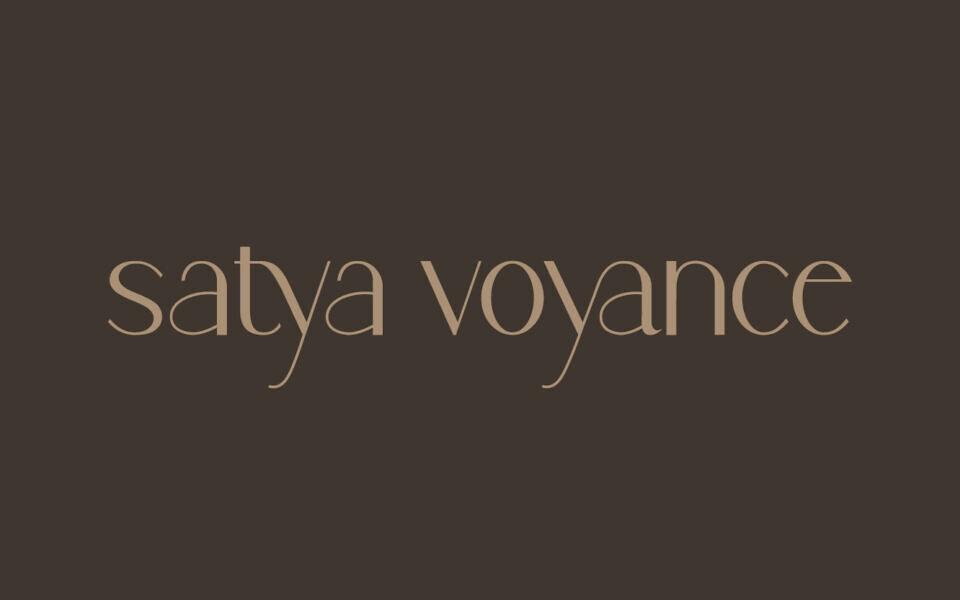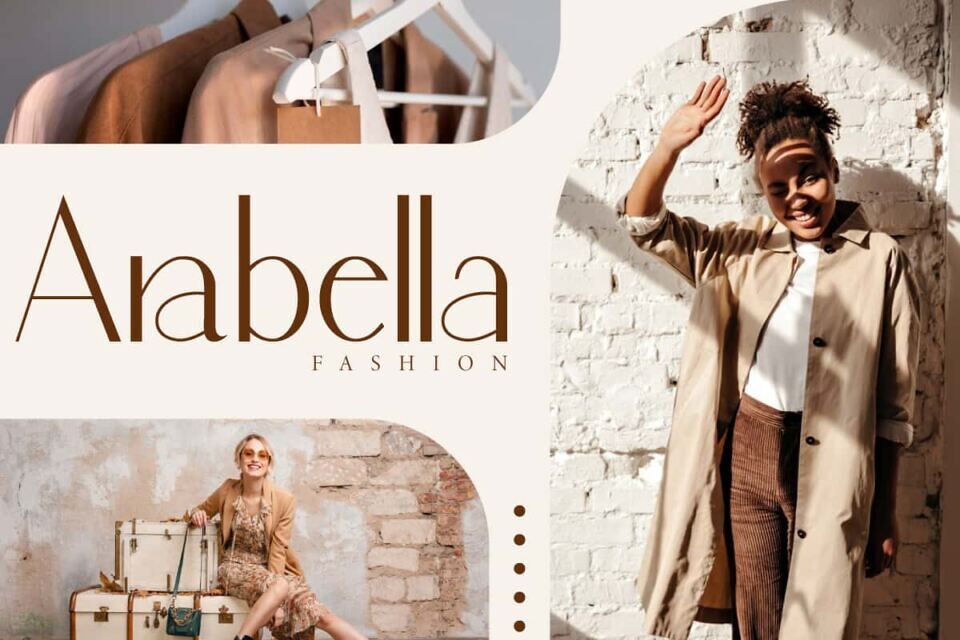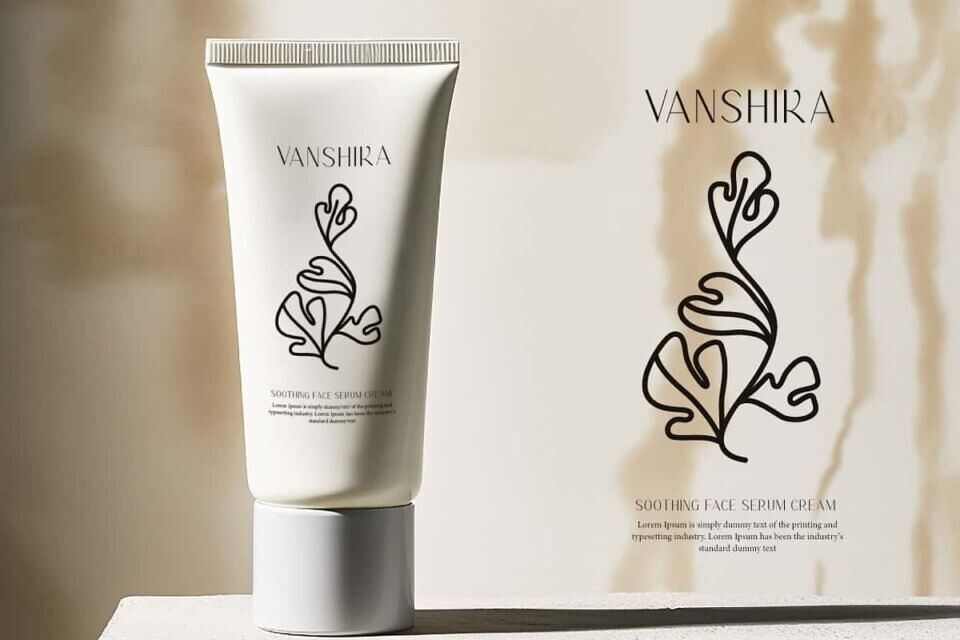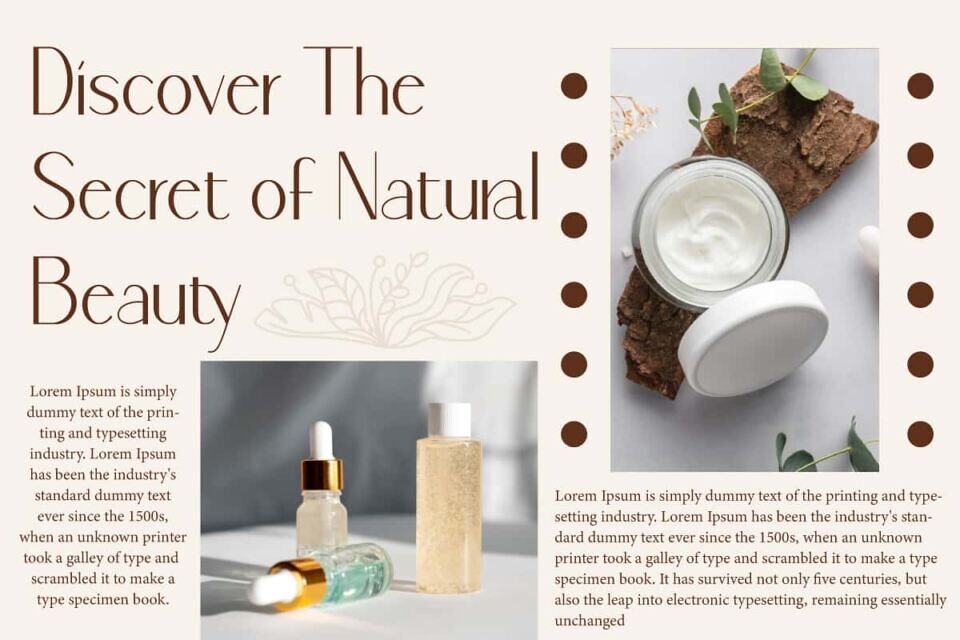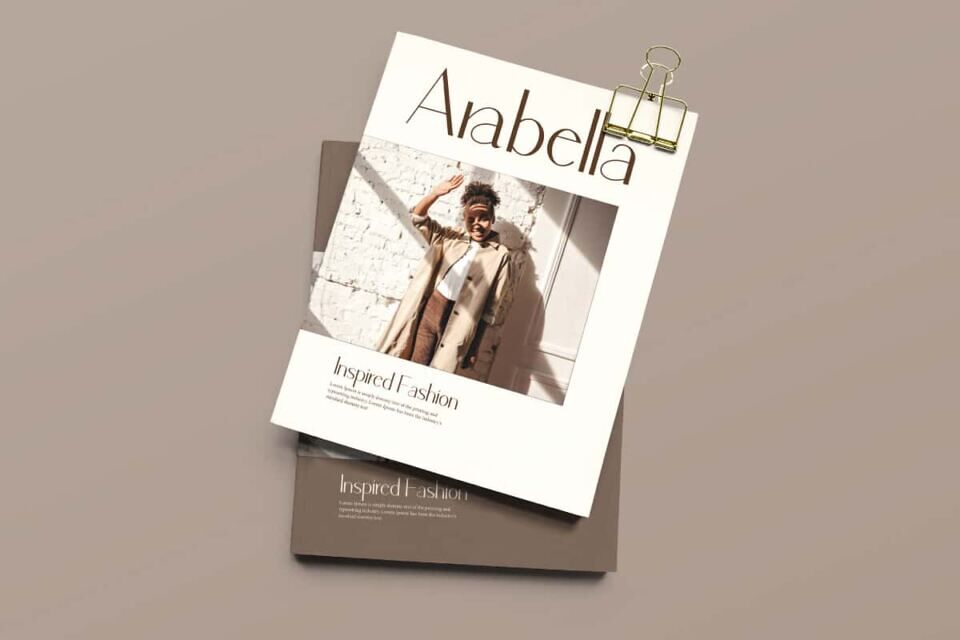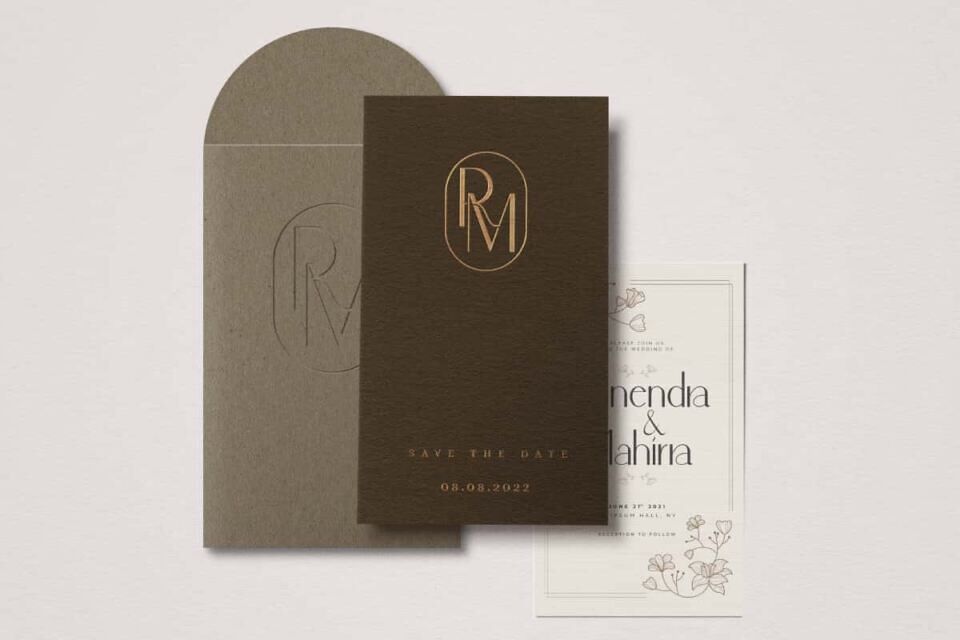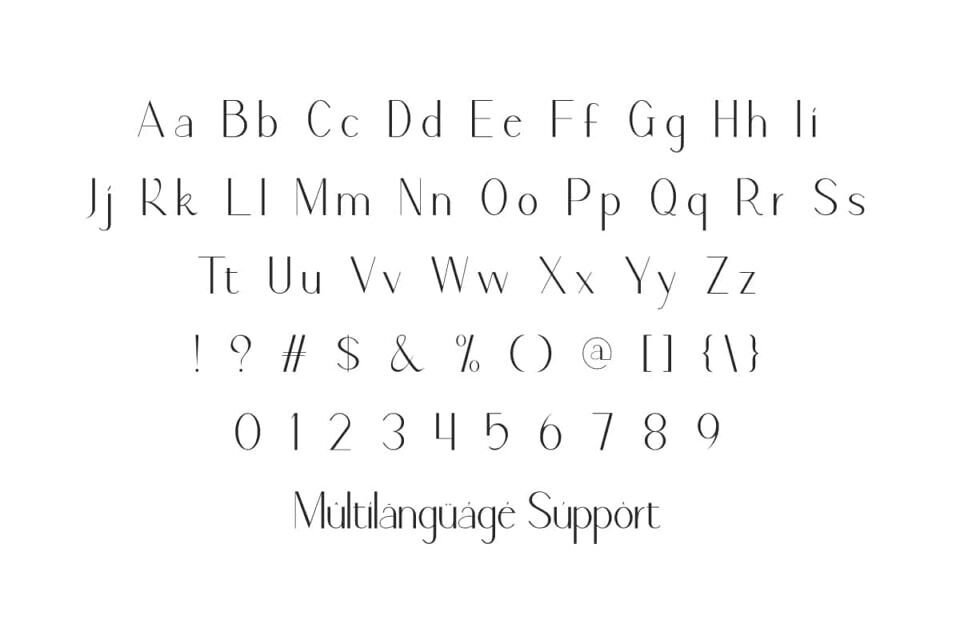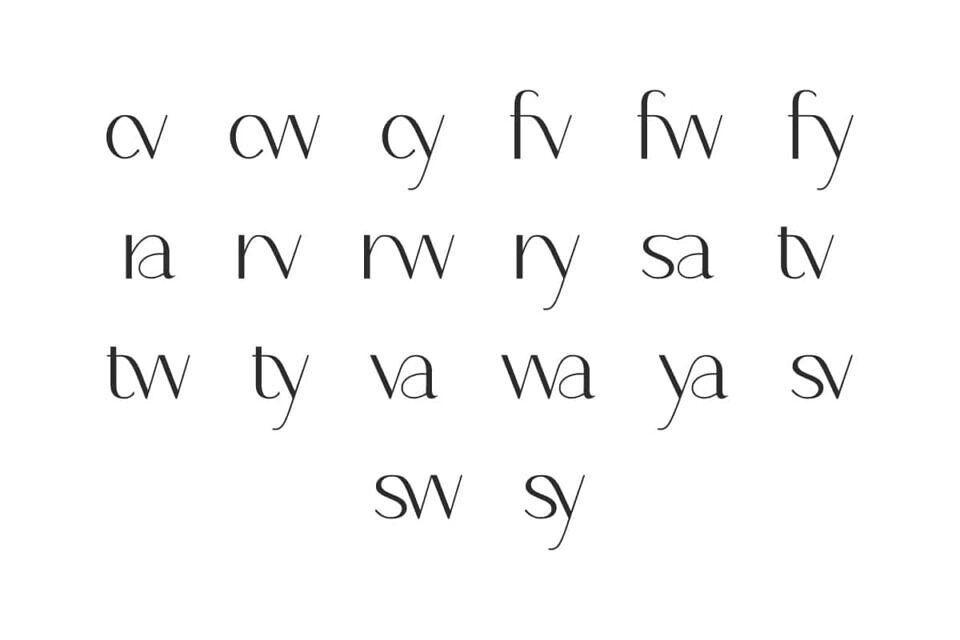
Satya Voyance Font is a beautiful and sophisticated display font at the same time, with a charming complement of ligatures. This is inspired by the title of a famous fashion magazine so the connection is very elegant and modern.
Perfect for banners, blogs, brochure, covers, flyer, headers, invitation, logos, mockup, packaging, quotes, template, titles, website, and more.